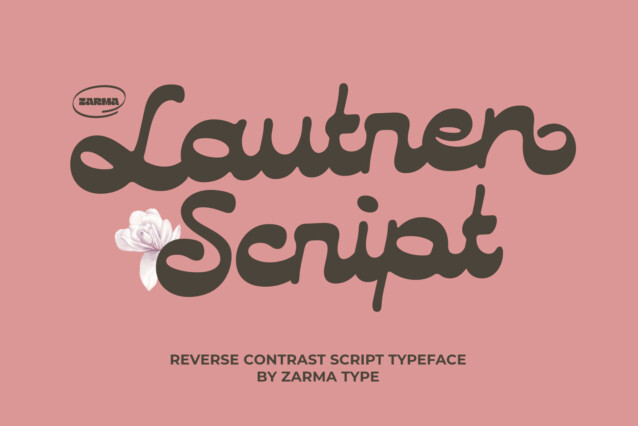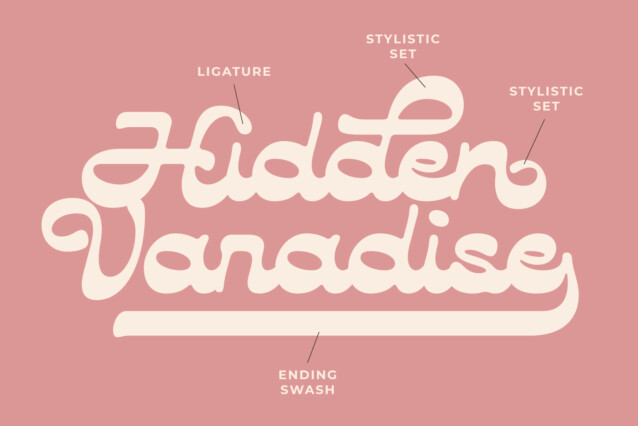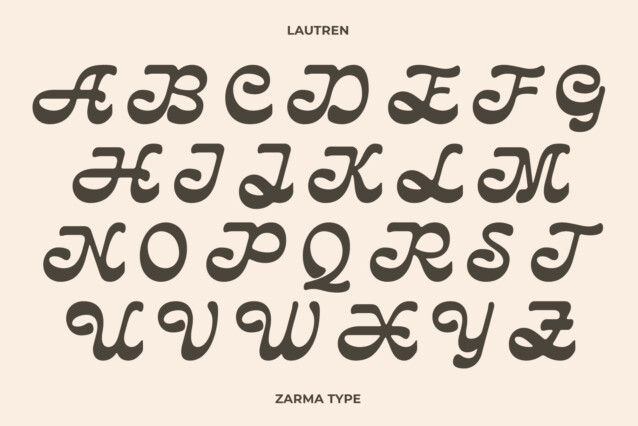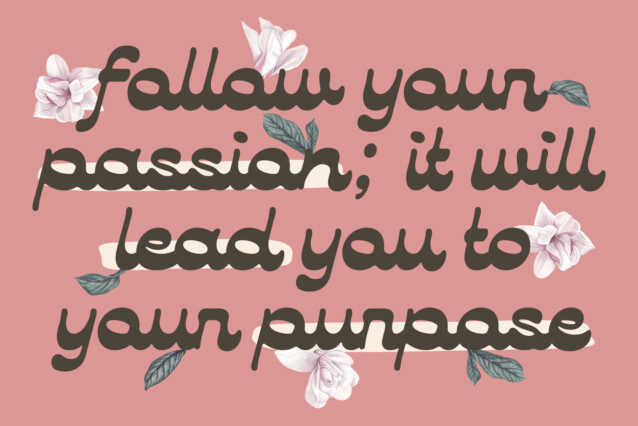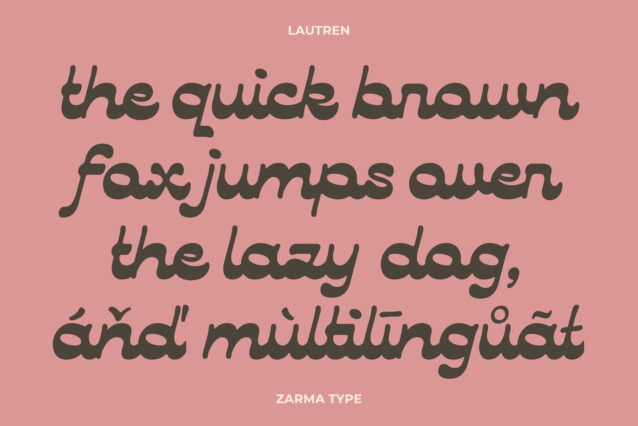
Lautren Font
Lautren Font is a new delightful bold script with reversed contrast typeface. The Ideas of this fonts came from funny summer vibes mood which is made more neater and smoother. Lautren created with a tons of opentype features like contextual alternates, stylistic sets, ligatures, and swashes at the ending of the letters. A fun typeface to play with!